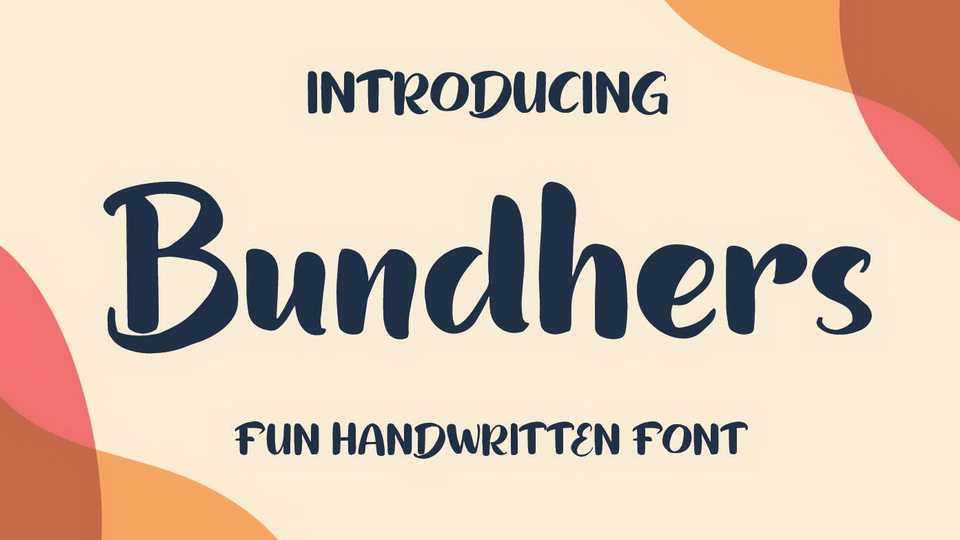
Download Bundhers font, a fun handwritten typeface. With Bundhers, you can use it for book and magazine cover, social media, headline, logo, crafts, merchandise, digital products, and more.